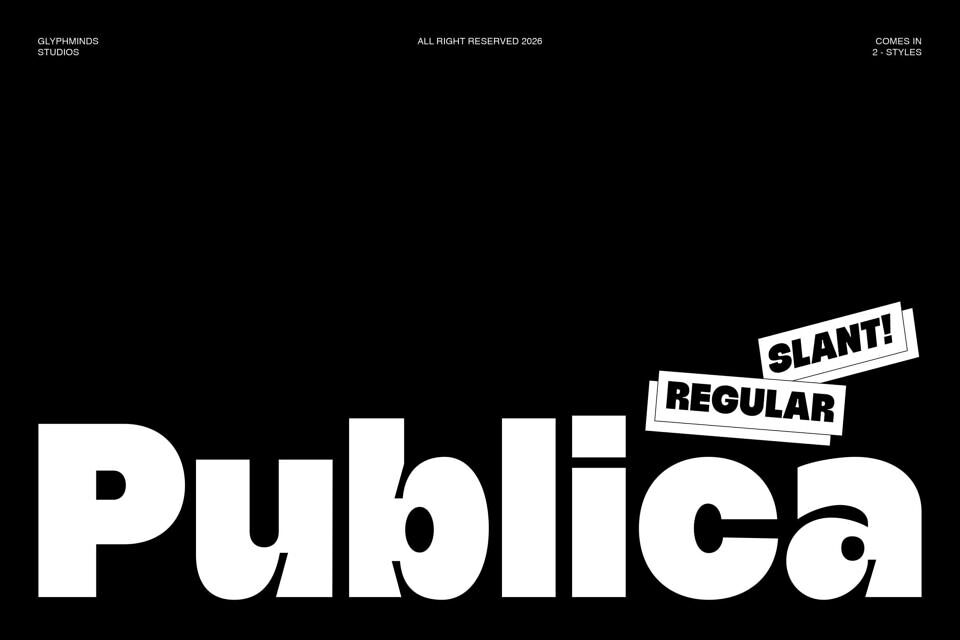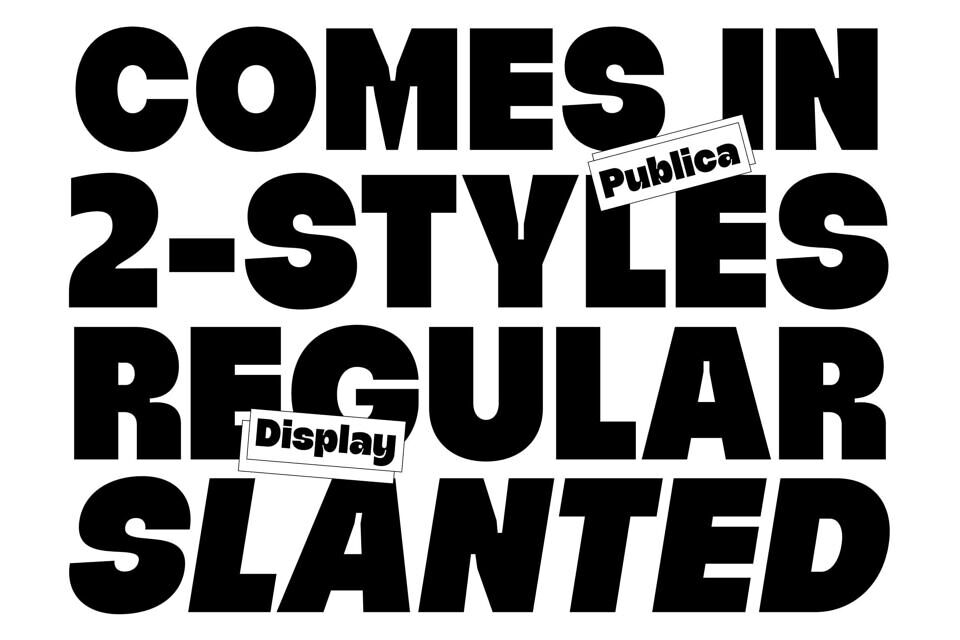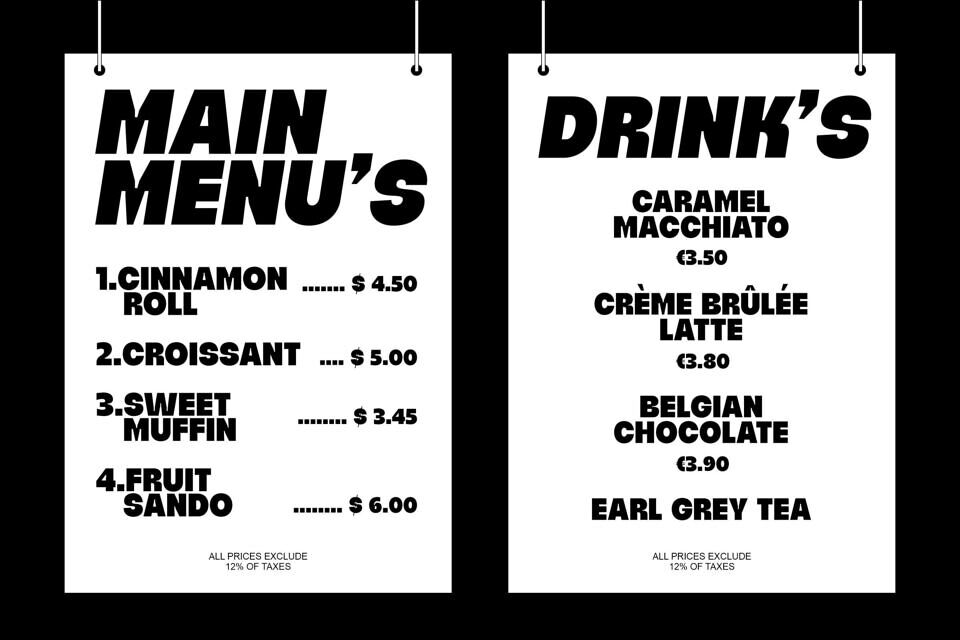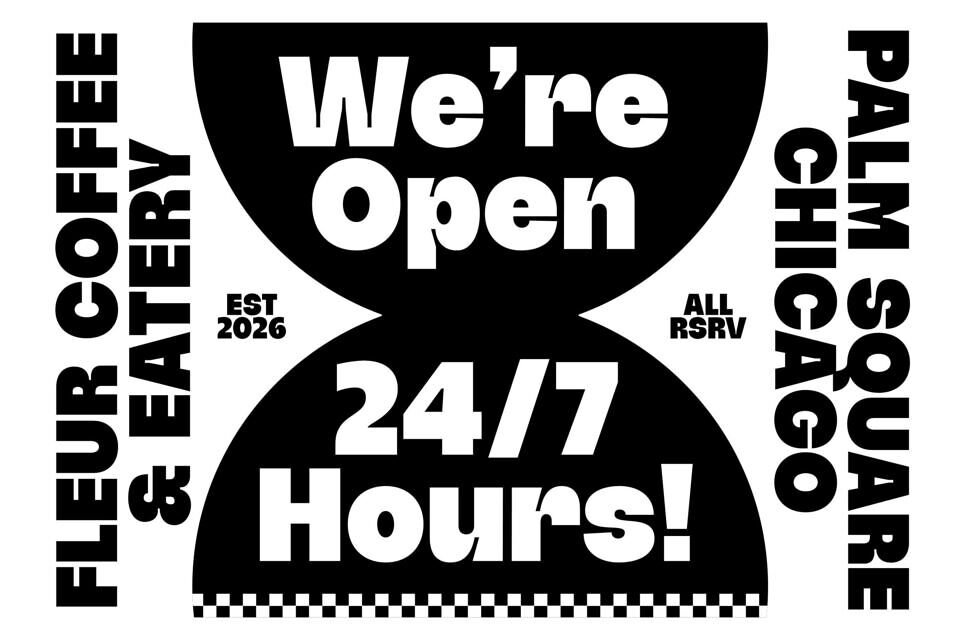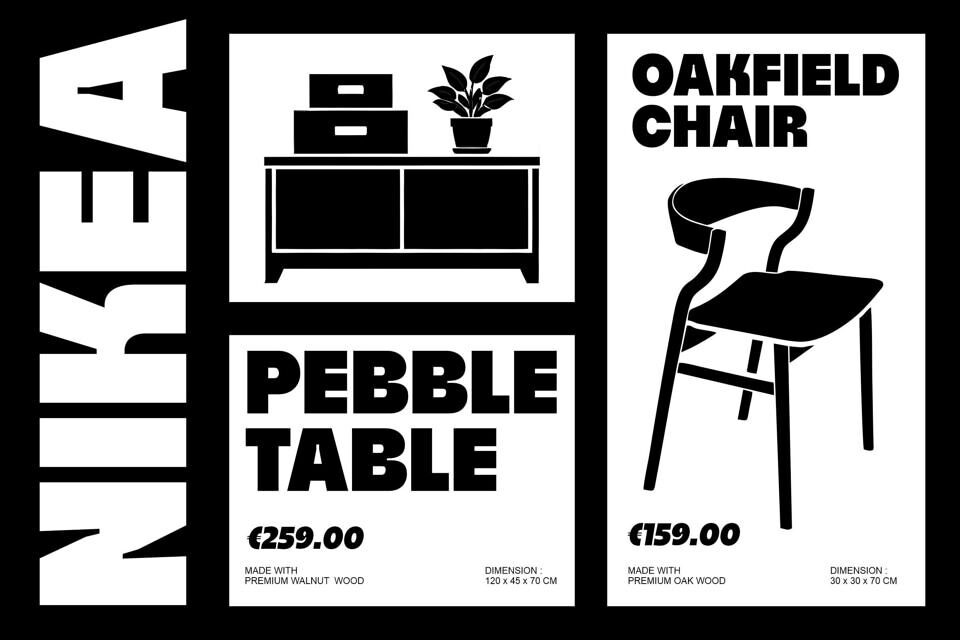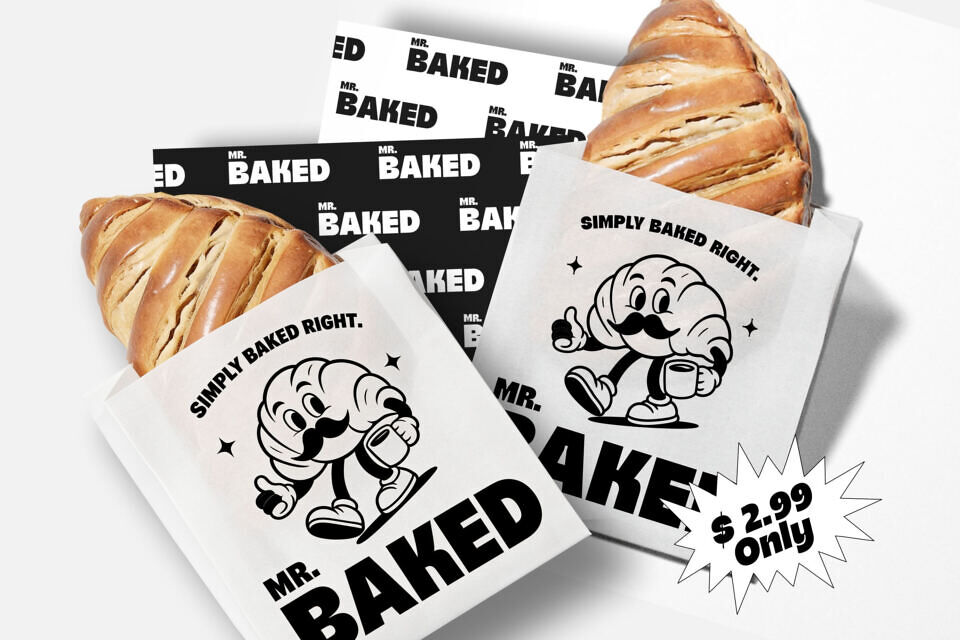
Publica Font
Publica is a modern bold display font designed to create strong visual impact while maintaining a clean contemporary appearance. Publica combines geometric shapes, thick letterforms, and modern aesthetics to help your projects look professional and eye-catching instantly.
Ideal applications include branding, logo creation, and visual design for various mediums such as posters, editorials, and packaging. It’s also suitable for social media, streetwear, and advertising projects, as well as website headlines and magazine covers.